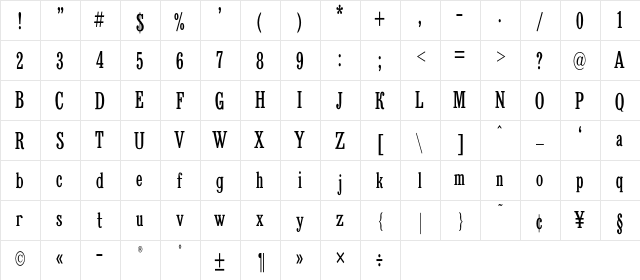
BruskovayaNarrowC Regular
Design Context for BruskovayaNarrowC Typeface
BruskovayaNarrowC takes a measured approach to typography — its balanced proportions and neutral character make it a reliable workhorse for both digital and print work. Its narrow stance lets it pack a punch even in space-constrained designs.
Dating back to 1992, this typeface is available in OpenType (OTF) format.